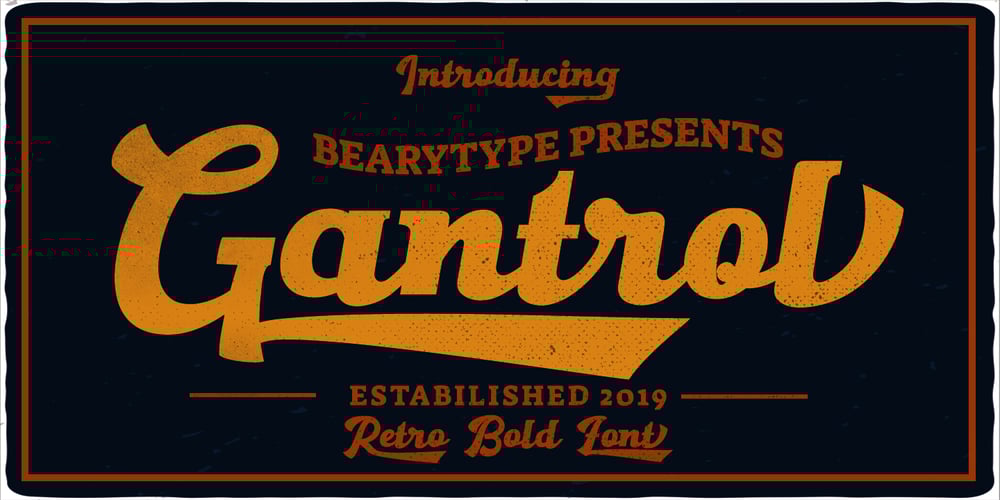
Gantrol
Gantrol font
Gantrol Font Family was designed by Dian Haniffan Hadi and published by Beary. Gantrol contains 1 styles and family package options. Gantrol is an amazing hand lettered, bold script with a retro feel, attractive swashes and alternates! Every single letter has been carefully crafted to make your text looks beautiful. This font is suitable for headlines, logos, typography design, t-shirt design, invitations, branding, packaging, advertising, classic designs, poster design, and more. I hope this can make inspire you from your work. Font is PUA encoded so you can access extras from character map in most design software. To enable the OpenType Stylistic alternates, you need a program that supports OpenType features such as Adobe Illustrator CS, Adobe Indesign & CorelDraw. There are additional ways to access alternates, using Character Map (Windows), Nexus Font (Windows), Font Book (Mac) or a software program such as PopChar (for Windows and Mac). Happy Creating